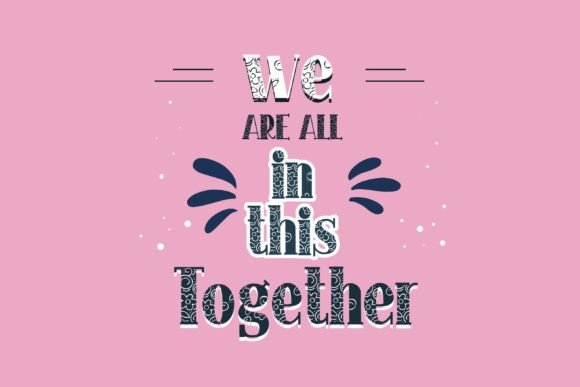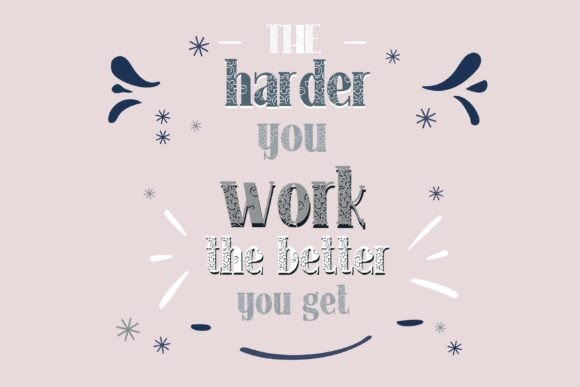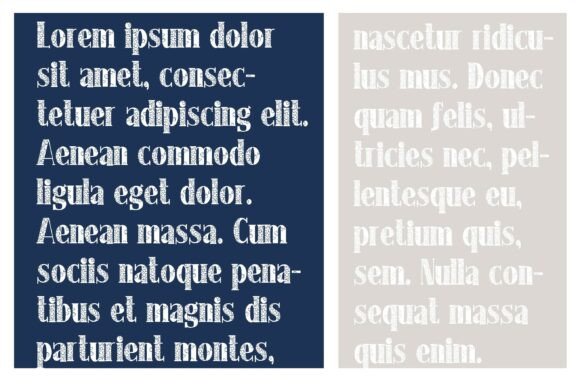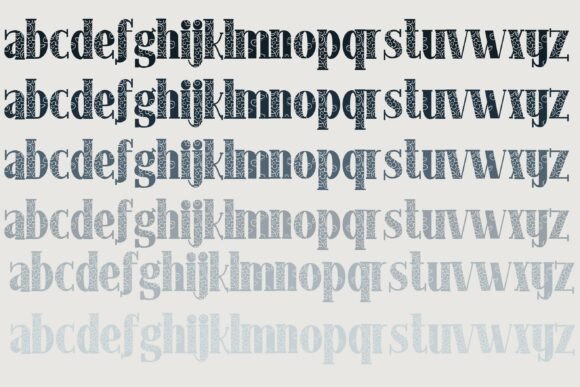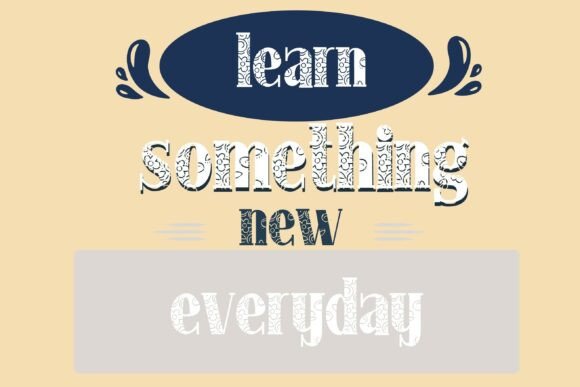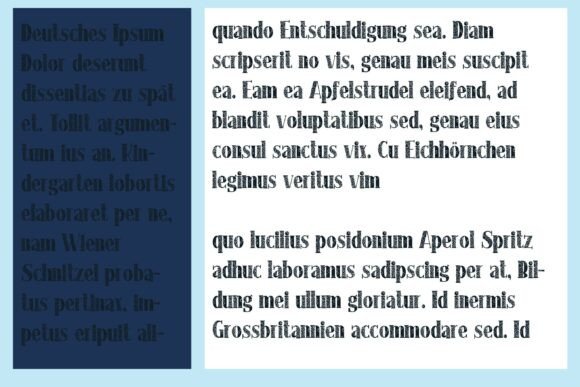
Introduction to Longfellow Lace Family Font Font
Fonts play a crucial role in design, and the Longfellow Lace Family Font font is a typeface that brings both character and versatility to any project. Whether you’re working on a branding project, a website, or a print design, the Longfellow Lace Family Font font offers a unique style that can elevate your work.
Longfellow Lace: Intricate Lace-Patterned Serif Capture a βvintage-luxeβ aesthetic with Longfellow Lace, a high-impact spring font.
This sturdy slab-serif skeleton serves as a canvas for intricate, internal lace and flower patterns It commands attention through its heavy visual weight while remaining delicate and refined through its negative-space detailing.
Key Features of Longfellow Lace Family Font Font
Why Choose Longfellow Lace Family Font Font?
The Longfellow Lace Family Font font is more than just a typeface β it’s a design tool that helps you communicate your message with style and clarity. Its unique character set and versatile design make it suitable for a wide range of applications, from elegant invitations to bold headlines.
With its carefully crafted letterforms and balanced proportions, the Longfellow Lace Family Font font ensures readability and visual appeal across all mediums.
What makes Longfellow Lace Family Font font special?
The Longfellow Lace Family Font font stands out with its unique design, exceptional readability, and versatility across various design applications.